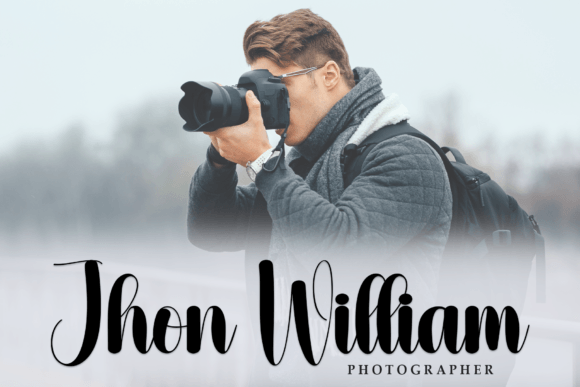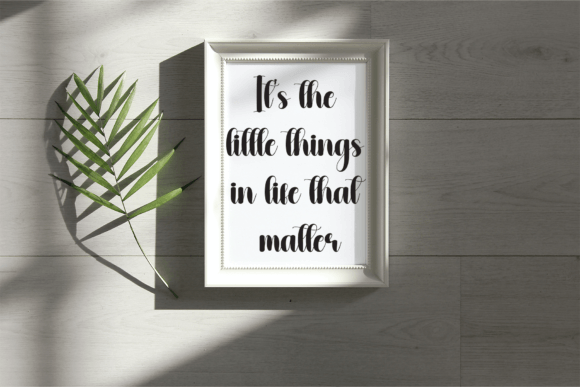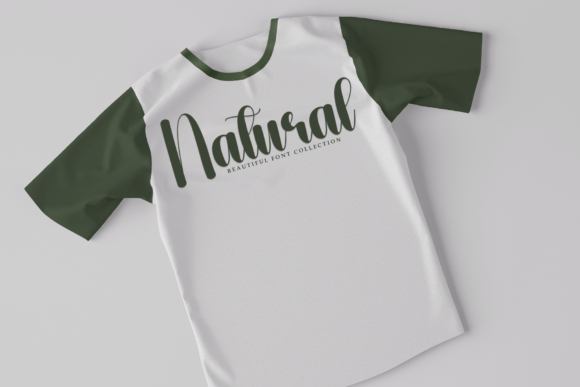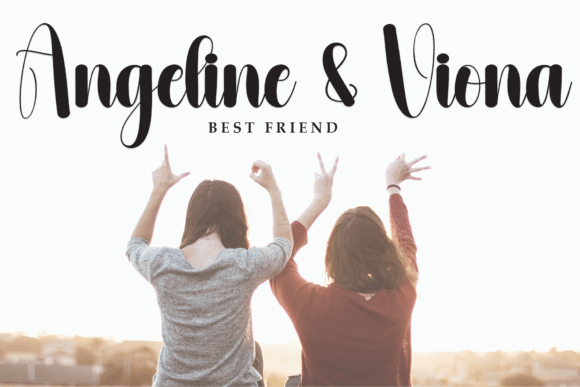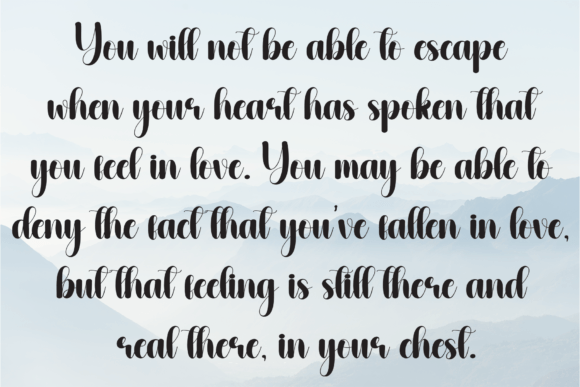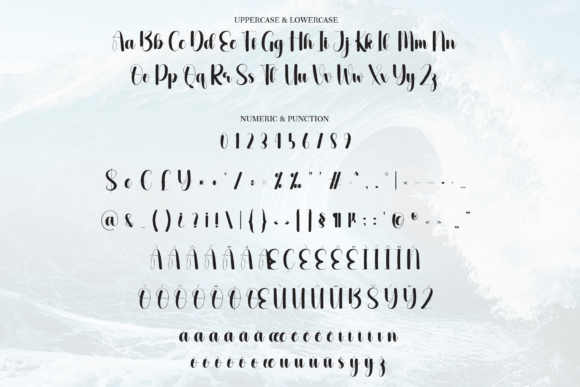
Adding a Splash of Personality with the Bigwaves Font
As a designer, have you ever been tasked with creating a wedding invitation that captures the joy and excitement of the happy couple? Or perhaps you’re looking to add a playful touch to a birthday card or social media post? Whatever the project, we’ve all been there – searching for the perfect font to convey the emotions and tone we’re aiming for.
Enter the Bigwaves Font, a sweet and friendly handwritten font that’s sure to bring a smile to your face. With its cute and fun design, this font is ideal for adding a personal touch to any project that needs a little extra flair. Whether you’re a seasoned designer or just starting out, the Bigwaves Font is a valuable addition to your toolkit, offering endless possibilities for creativity and self-expression.
By incorporating the Bigwaves Font into your designs, you’ll be able to bring a unique and charming personality to your work, setting you apart from the crowd and making your creations truly unforgettable.
Bigwaves Font Key Features
- Unique Characteristics: Bigwaves Font features a unique wave-like design, creating a dynamic and energetic feel that is perfect for creative and modern designs.
Bigwaves Font Review
Bigwaves Font is a beautiful and unique font that can add a touch of personality to any project. ✨ The font’s irregular shape and organic feel make it perfect for creative projects, such as branding, advertising, or even packaging design.
Here are some things that work well with Bigwaves Font:
- Unique and attention-grabbing: The font’s irregular shape makes it stand out from more traditional fonts.
- Highly customizable: Bigwaves Font can be easily customized to fit your design needs, with a range of font sizes, colors, and styles available.
- Perfect for creative projects: The font’s organic feel makes it perfect for creative projects that require a unique and eye-catching touch.
However, there are some limitations to Bigwaves Font:
- Not suitable for formal documents: The font’s irregular shape may not be suitable for formal documents or situations where a more traditional font is required.
- May be difficult to read: In some cases, the font’s irregular shape may make it difficult to read, especially at smaller font sizes.
Overall, Bigwaves Font is a great addition to any designer’s toolkit. While it may not be suitable for every project, it’s perfect for creative projects that require a unique and eye-catching touch. With its high level of customization and unique feel, Bigwaves Font is definitely worth considering for your next design project.
Tips for Getting the Most Out of Bigwaves Font
Bigwaves Font is a highly expressive font that works well for titles, headings, and emphasis. Here are some tips for getting the most out of it:
- Use Bigwaves Font sparingly to create visual interest and emphasis.
- Combine Bigwaves Font with other fonts to create a unique and interesting typography.
- Experiment with different font sizes and colors to achieve the desired effect.
Bigwaves Font is commonly used for:
- Titles and headings in design projects.
- Emphasis